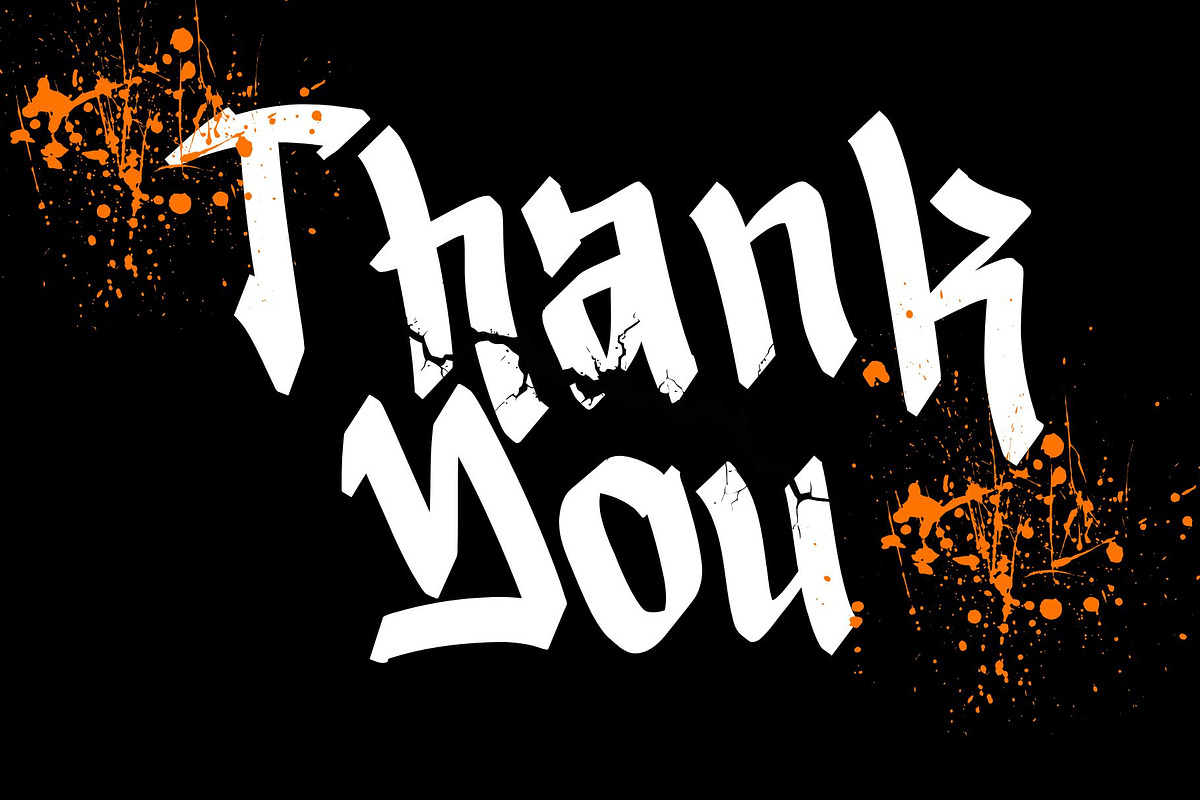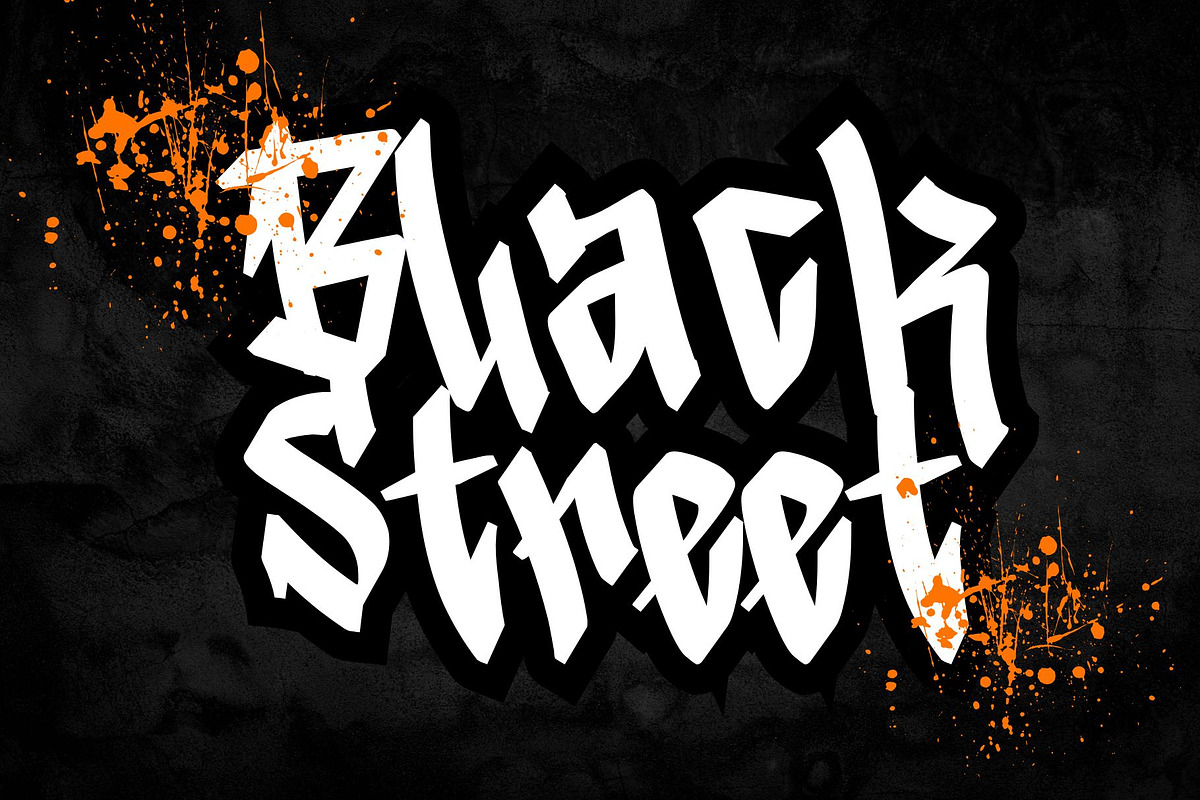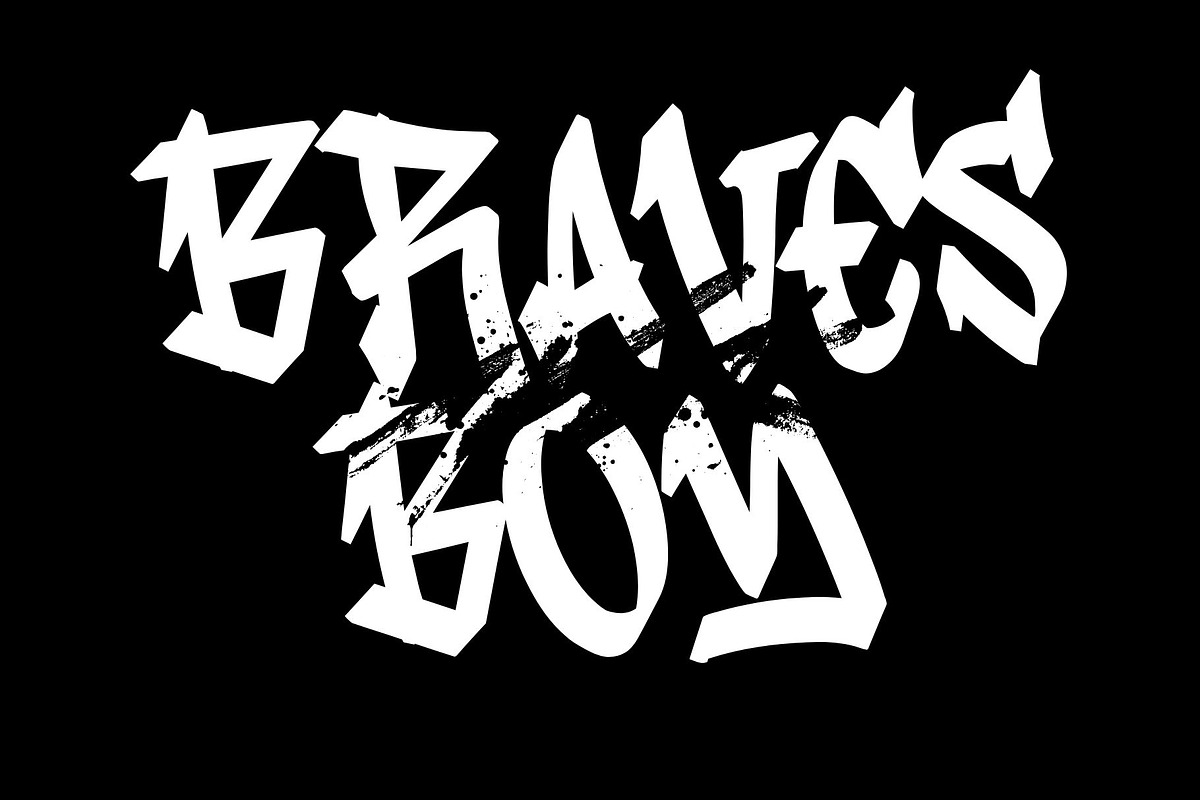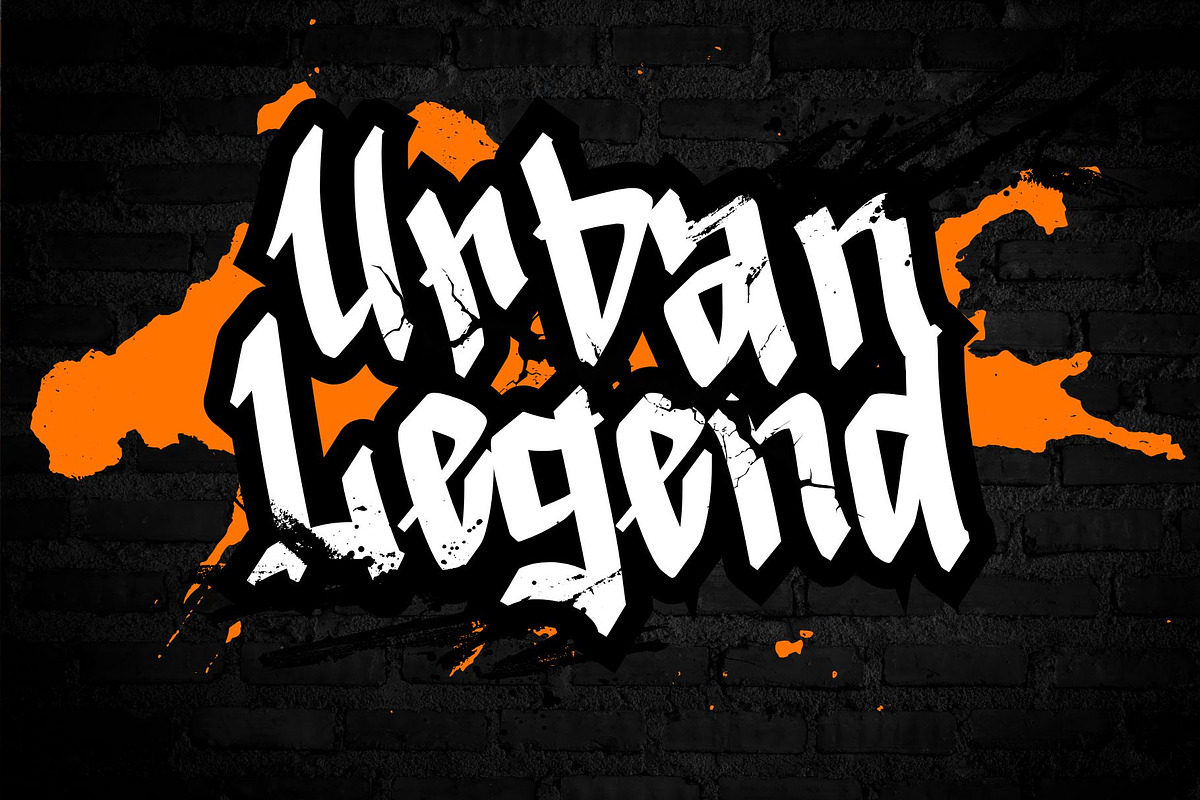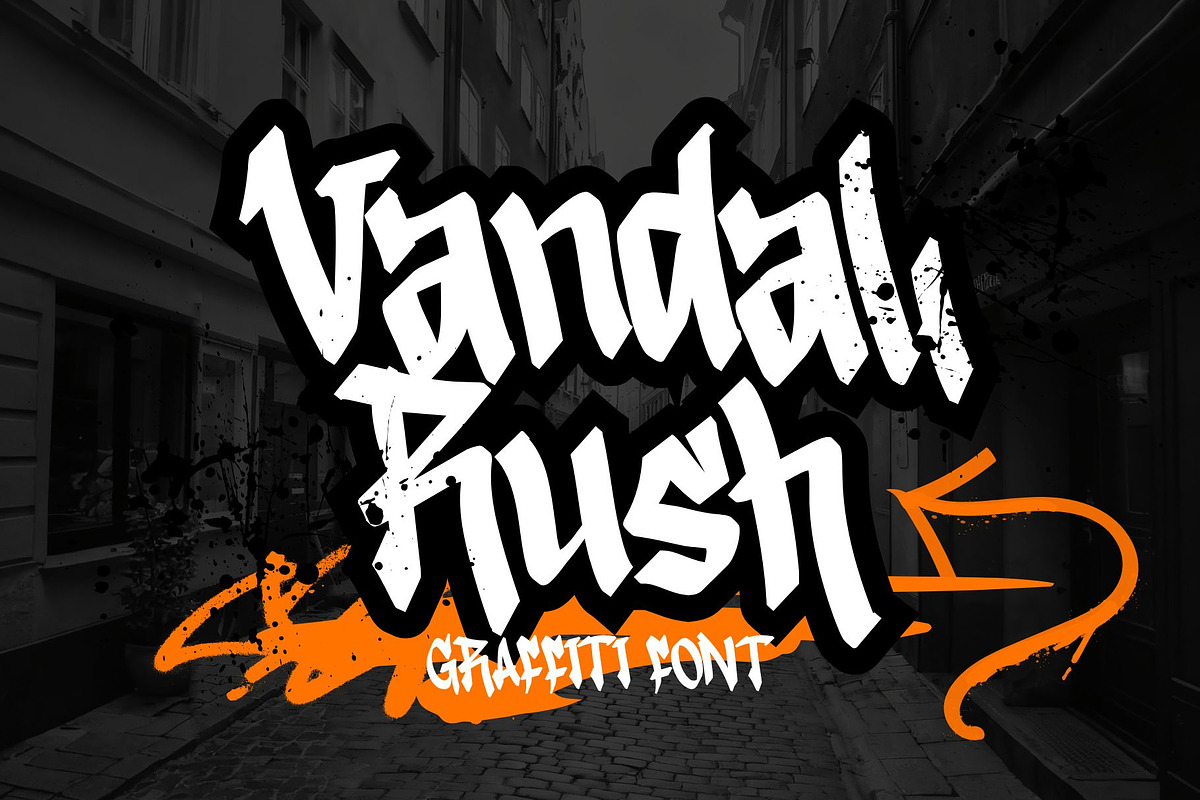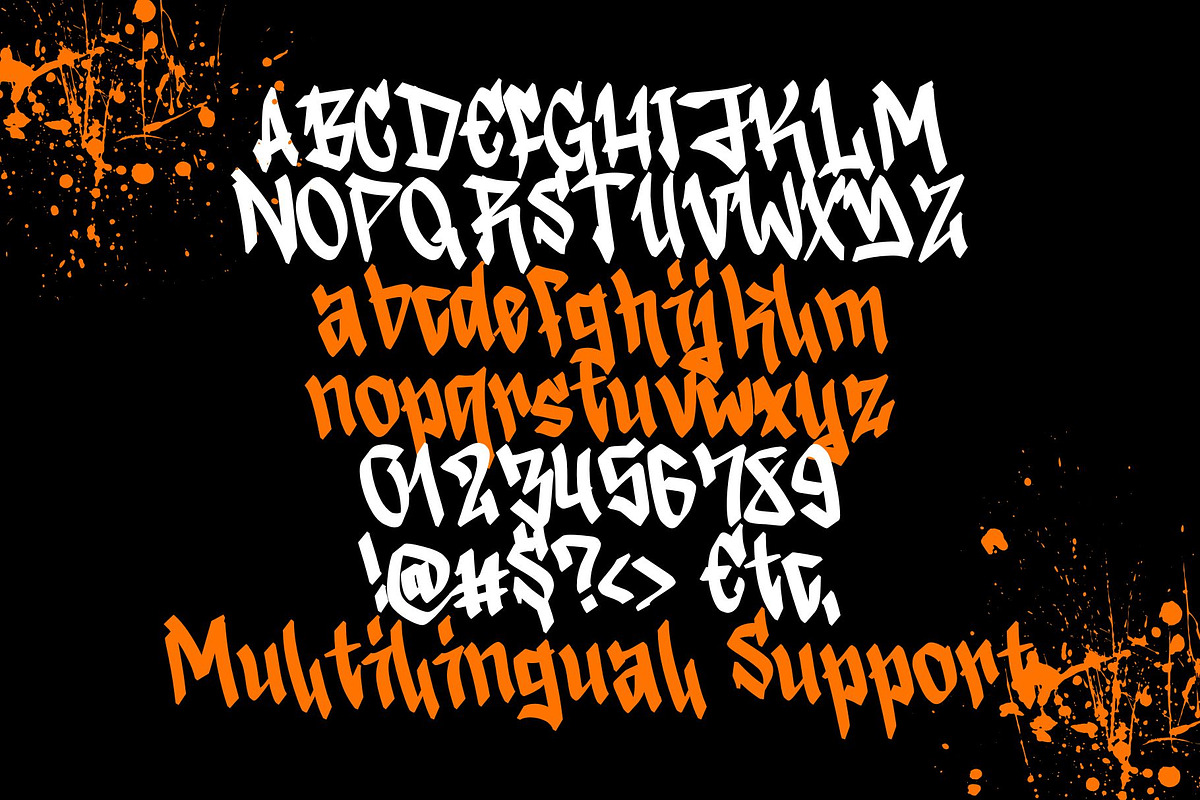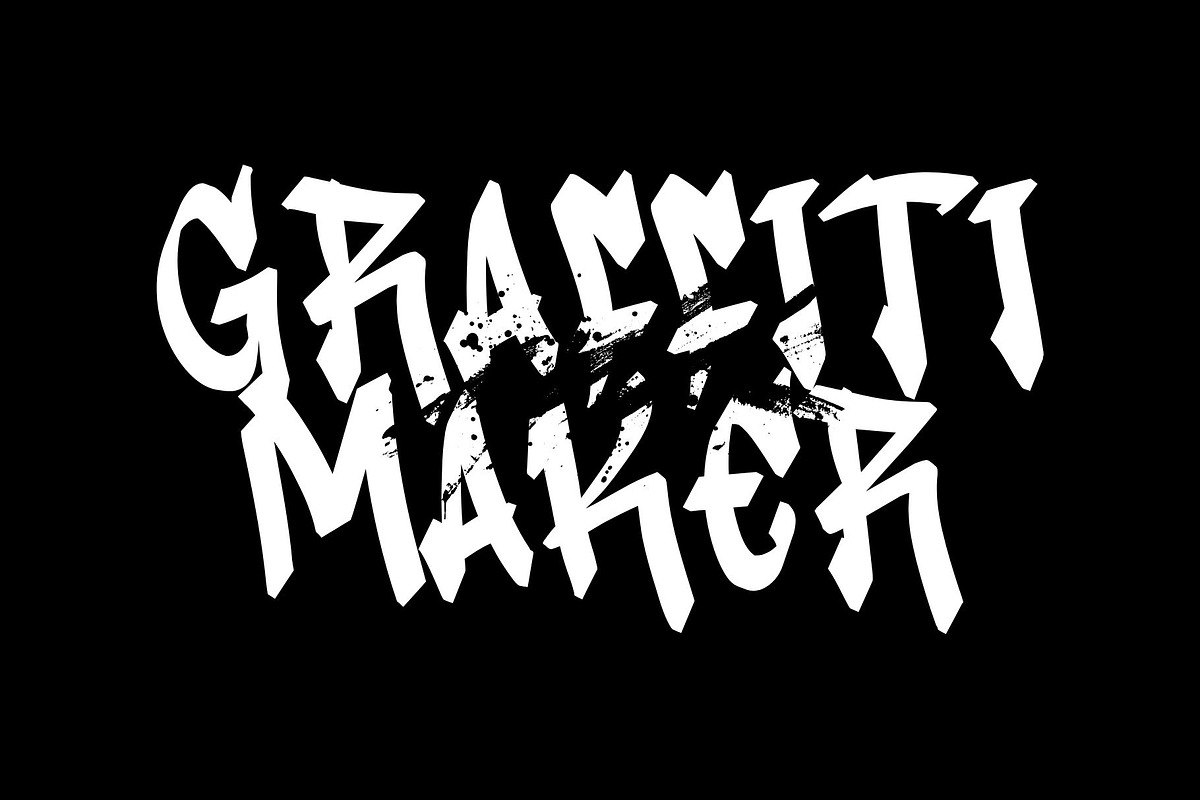
Vandal Rush
Vandal Rush is a bold graffiti-style display font inspired by urban street culture and expressive hand-painted lettering. This font features strong, irregular strokes with dynamic angles and textured splatter details that convey energy, rebellion, and raw creativity. Its high contrast and compact letterforms make it highly impactful and visually dominant, even at large sizes.
Designed to capture the essence of street art and underground typography, Vandal Rush is ideal for posters, branding, album covers, streetwear designs, event promotions, social media graphics, and headline-focused layouts. The font performs best when used as a display typeface, delivering a powerful statement with a modern urban edge.
- Support multilingual; ä ö ü Ä Ö Ü ß ¿ ¡
- lowercase and uppercase letters